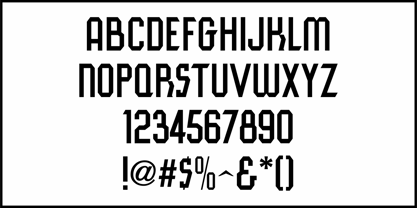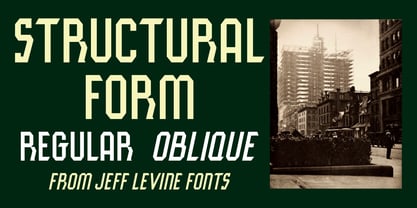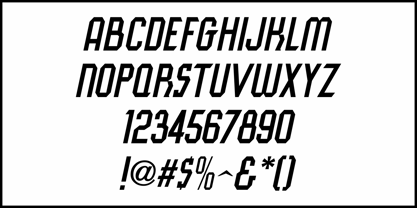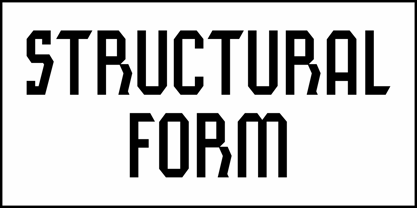
Structural Form JNL
por Jeff Levine
La familia tipográfica Structural Form JNL fue diseñada por Jeff Levine y publicada por Jeff Levine. Structural Form JNL contiene 2 estilos y opciones de paquete familiar. Más información sobre esta familia
An ad appearing in the June 5, 1935 edition of Motion Picture Daily for the film "Bluebeard's Eight Wives" was hand lettered in a condensed, chamfered sans with some Art Deco influences.
This is now available as Structural Form JNL, in both regular and oblique versions.